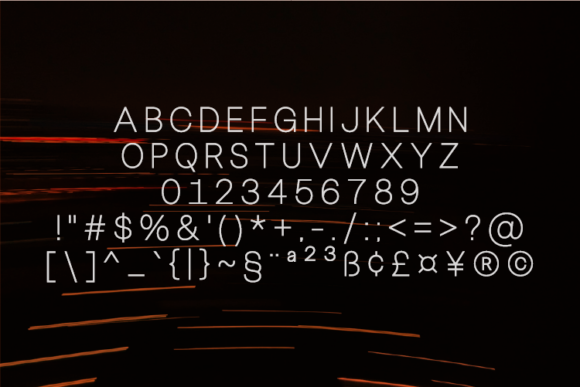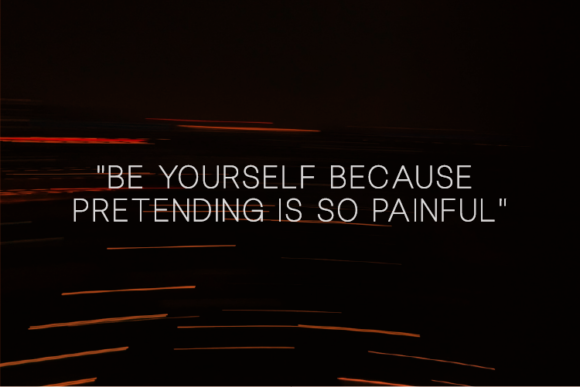
Introduction to Molegue Font
As a designer, you’ve probably been there – staring at a blank screen, trying to find the perfect font to bring your creative project to life. You’ve scoured through countless options, only to find that nothing seems quite right. But what if I told you there’s a font that’s been flying under the radar, waiting to be discovered? Enter the Molegue Font – a modern, clean sans serif font that’s about to revolutionize the way you design.
With its smooth lines, subtle contrast, and versatility, the Molegue Font is the ultimate design resource for anyone looking to elevate their creative project. Whether you’re working on a logo, branding, or web design, this high-quality font is sure to impress. And the best part? It’s available for a free download, complete with a transparent background, making it easy to integrate into your design.
Key Features of Molegue Font
- High-quality design resource ideal for creative projects, offering a unique and stylish aesthetic.
- Designed with a high resolution of 300 DPI, ensuring crisp and clear typography in both digital and print projects.
- Perfect for use in creative projects, such as branding, advertising, and editorial design, due to its distinctive and eye-catching style.
- Supports multiple languages, making it a versatile design resource for international projects.
Honest Review: Molegue Font
As a designer, I’m always on the lookout for high-quality design resources to enhance my creative projects. Recently, I had the chance to try out the Molegue Font, and here’s my honest review.
- ✨ Unique Character Set: The Molegue Font offers a wide range of characters, including Latin, Cyrillic, and Greek alphabets, making it a great choice for international projects.
- ✨ High-Quality Vectors: The font is available in high-resolution vector format, ensuring crisp and clear results even when scaled up or down.
- ✨ Easy to Customize: The font is fully editable, allowing me to customize it to fit my project’s needs.
While the Molegue Font is a great addition to any designer’s toolkit, there are a few limitations to consider:
- ⚠️ Transparency Issues: The font’s transparent background can sometimes cause issues when used on complex designs with multiple layers.
Overall, the Molegue Font is a solid choice for designers looking for a high-quality, versatile font for their creative projects. With a little creativity and patience, its limitations can be easily overcome, making it a valuable addition to any design resource collection.
The Molegue Font is a high-quality design resource that can elevate your creative project to the next level. With its unique and stylish characters, you can create visually appealing graphics, logos, and typography.
Common Use Cases for Molegue Font
The Molegue Font is suitable for a variety of creative projects, including graphic design, logo creation, and typography. You can use it to create eye-catching headlines, titles, and captions for your design.
Tips for Getting the Most Out of Molegue Font
To get the most out of the Molegue Font, use it in combination with a transparent background to create a striking visual effect. You can also experiment with different font sizes, styles, and colors to create a unique design that stands out from the crowd.